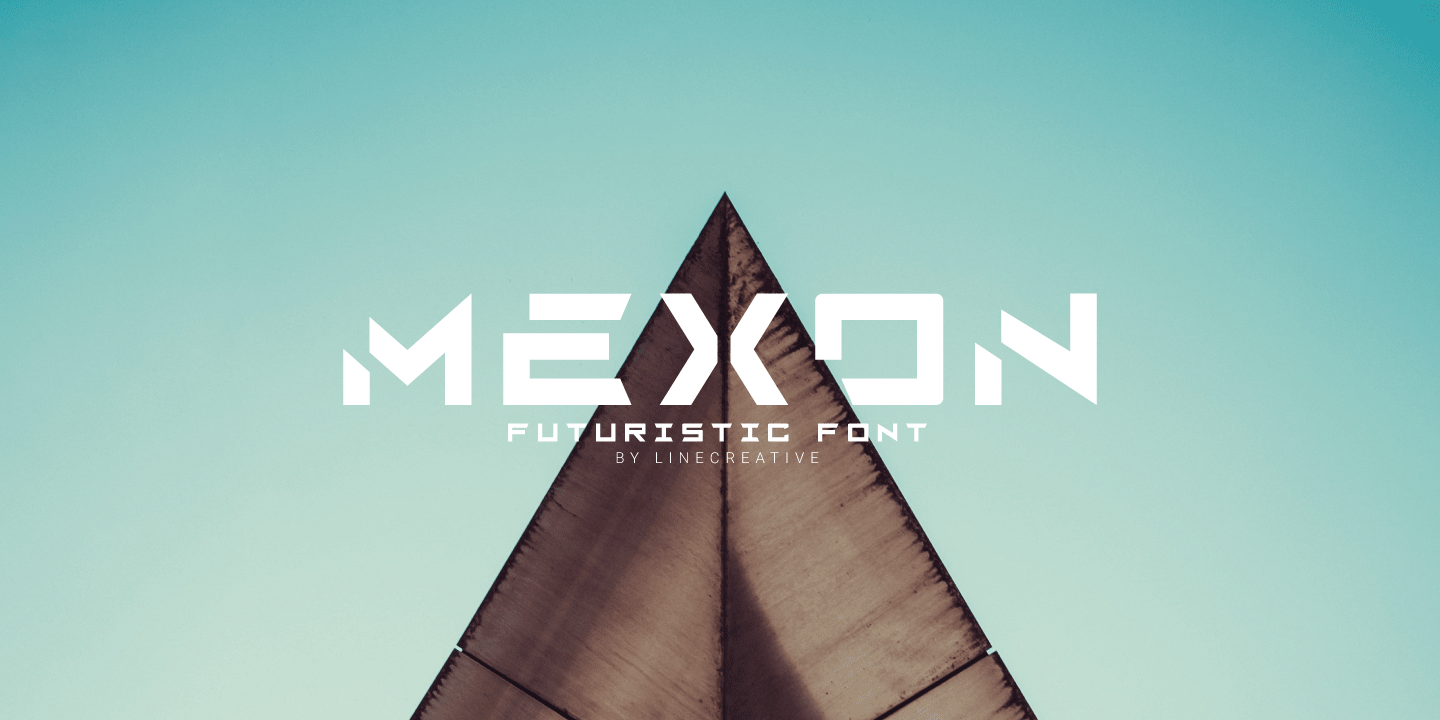
The Mexon Font is perfect for tech startup branding, futuristic logos, sci-fi movie titles, gaming interfaces, digital dashboards, modern websites, innovative product packaging, cyberpunk designs, tech conference materials, and cutting-edge advertising campaigns.
What makes the Mexon Font exciting is its bold fusion of technological precision and contemporary design aesthetics that perfectly captures the spirit of digital innovation. This dynamic typeface features sharp angles, geometric constructions, and futuristic letterforms that convey power, progress, and cutting-edge technology. Each character demonstrates meticulous engineering with clean lines and precise curves that create an unmistakably modern appearance.
The Mexon Font family includes light, regular, medium, bold, and black weights, along with condensed versions and extended character sets that support advanced typographic applications and multilingual projects.
Whether you're building brand identities for tech companies or creating futuristic design concepts, Mexon Font Free Download provides the perfect solution for forward-thinking projects. Its precisely crafted letterforms ensure excellent legibility across digital platforms while maintaining that essential high-tech aesthetic that commands attention. The font's OpenType features include stylistic alternates, technical symbols, and specialized glyphs that enhance professional technology branding. Tech entrepreneurs and digital designers consistently choose this font for projects requiring innovation and sophistication. The Mexon Font transforms ordinary text into powerful technological statements, making it an indispensable tool for any designer's futuristic typography arsenal.